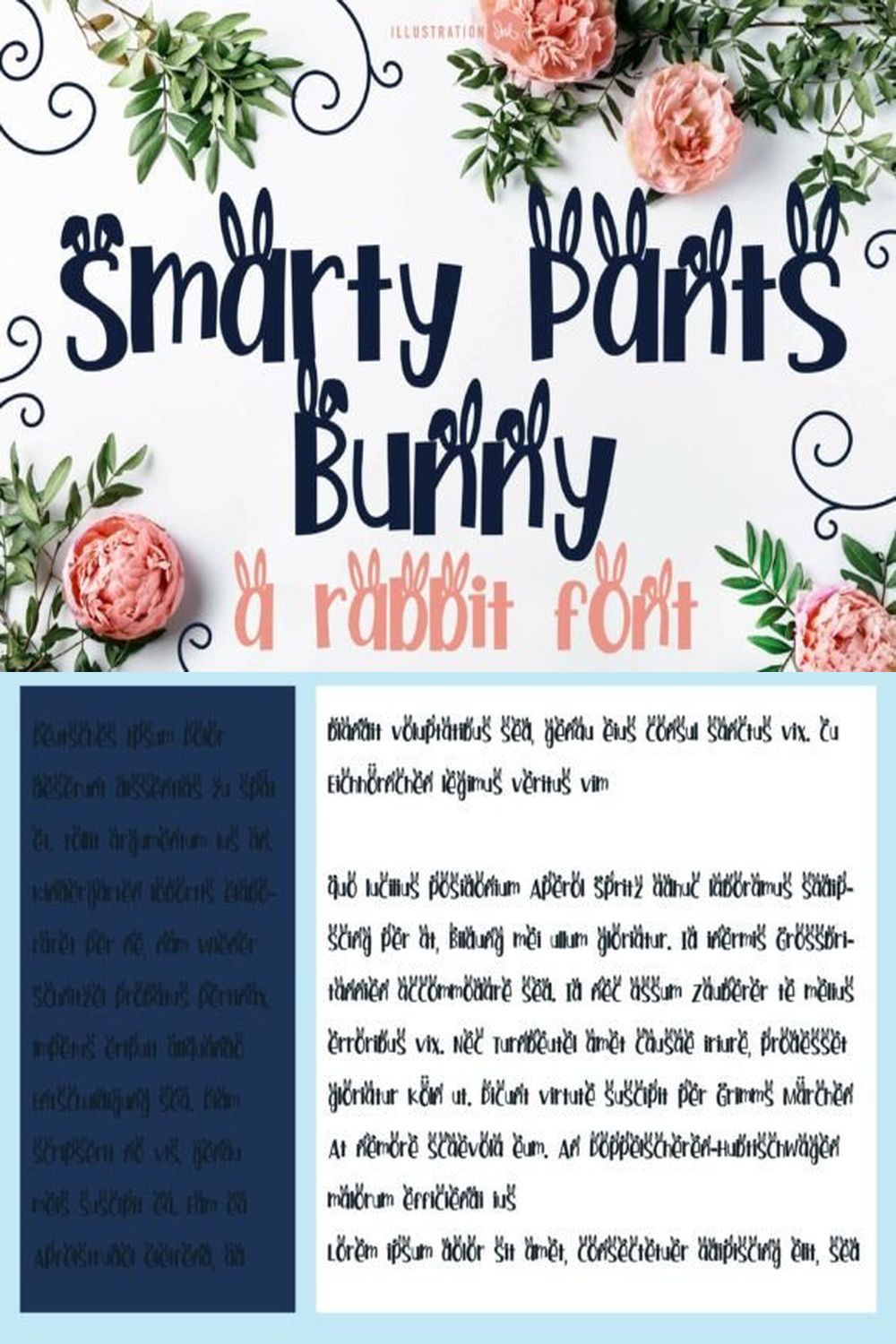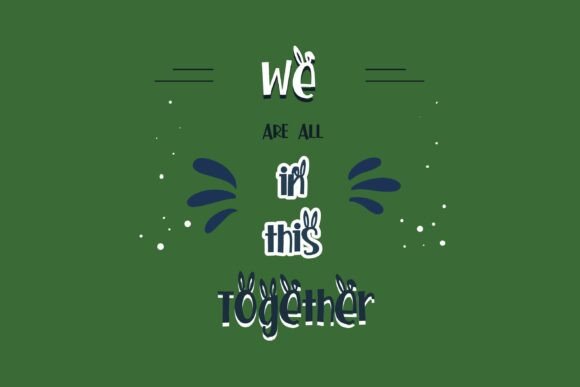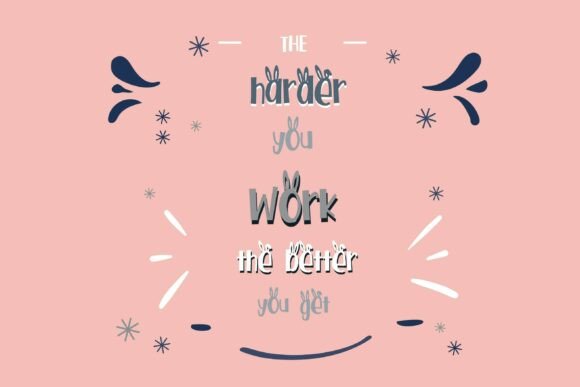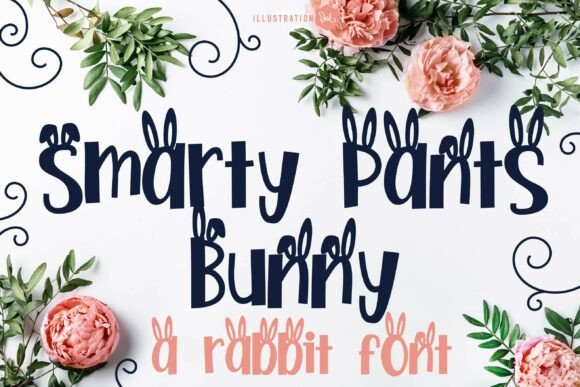
Smarty Pants Bunny Font
About the Smarty Pants Bunny Font
Make a bold statement with Smarty Pants Bunny Font, a powerful and memorable font. This hand-crafted font is a whimsical sans serif with bunny ears.